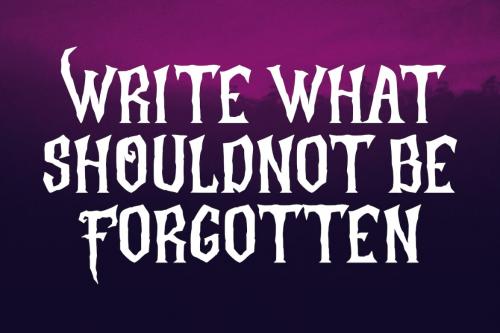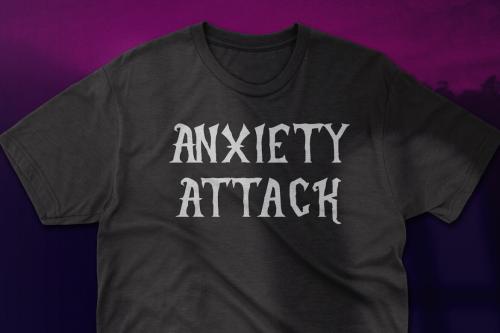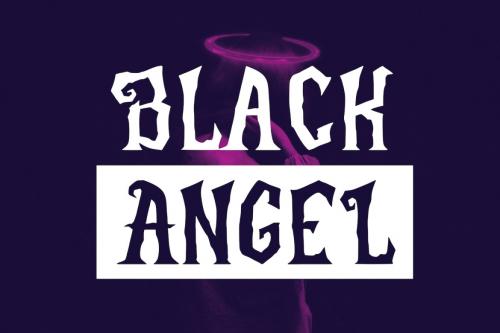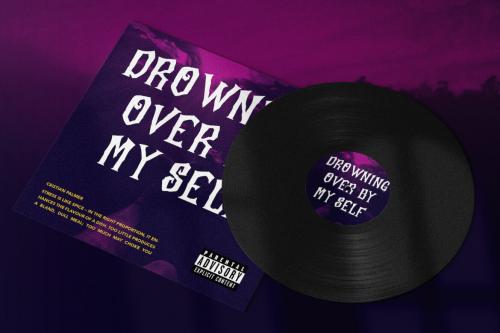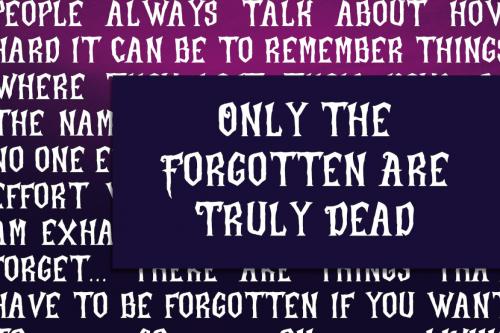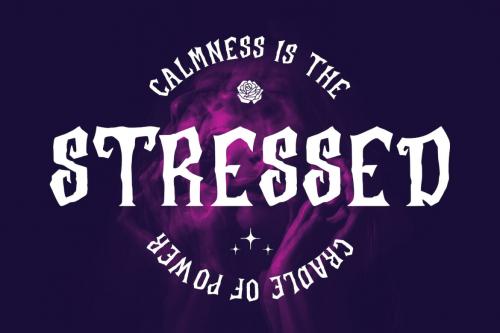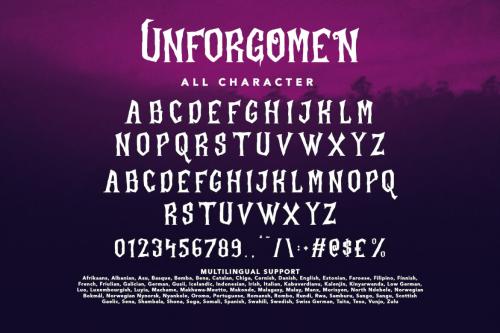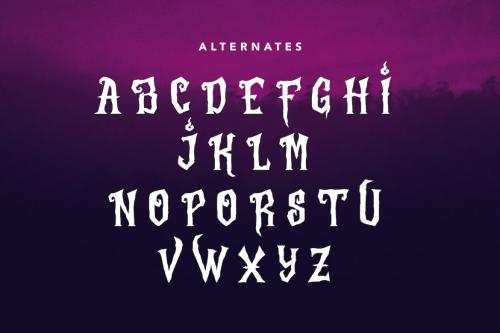
Unforgomen is a classic display serif font. With medium low contrast stroke, fun character with a bit of ligatures and alternates. To give you an extra creative work. Unforgomen font support multilingual more than 100+ language. This font is good for logo design, Social media, Movie Titles, Books Titles, a short text even a long text letter and good for your secondary text font with script or serif. Make a stunning work with Unforgomen font.